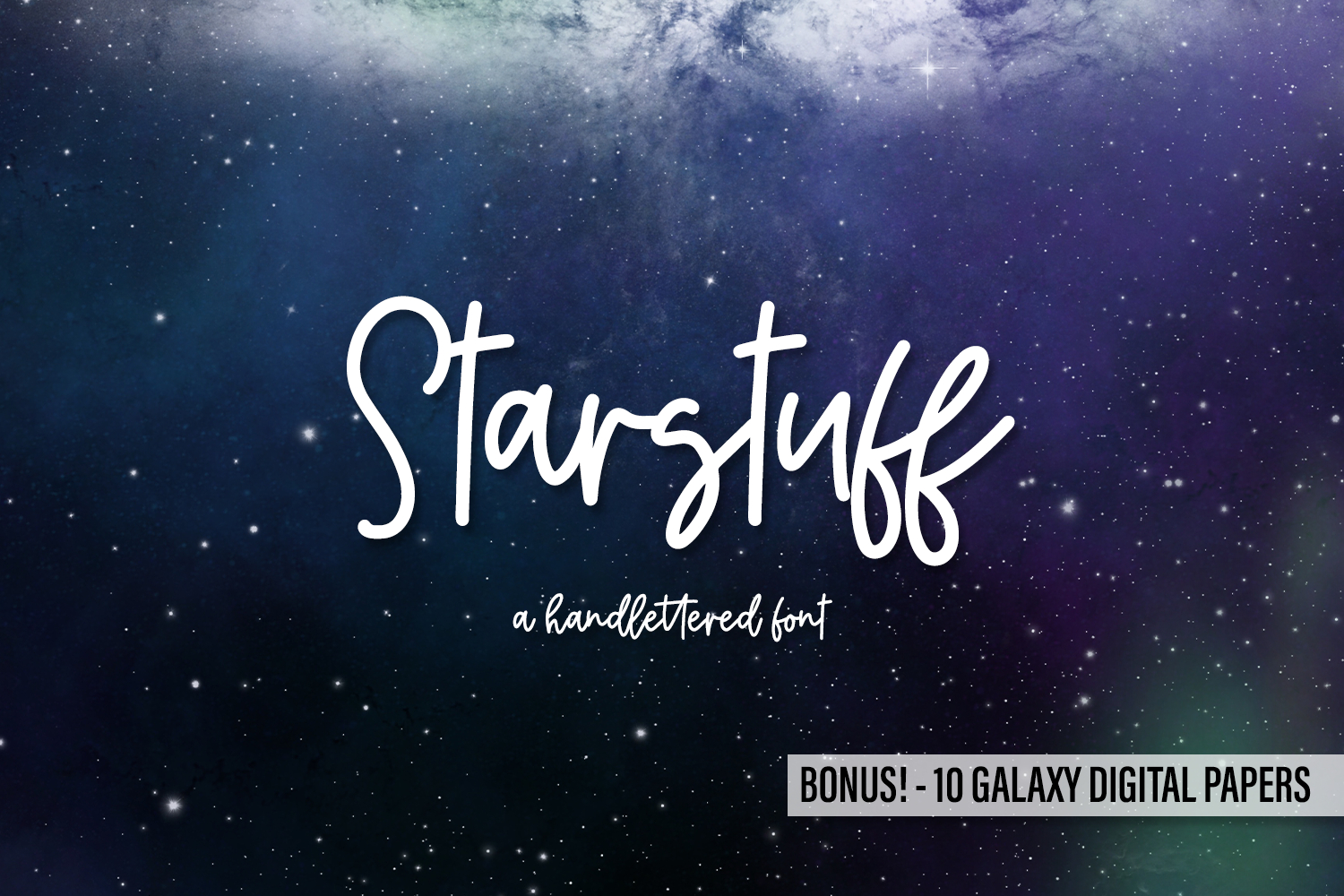
Starstuff Script
Starstuff Script is a go for launch! Starstuff Script is a signature-style monoline font. Resembling the look of a ballpoint pen or gel pen, Starstuff is an out-of-this-world addition to your font arsenal, perfect for quote graphics, modern/edgy vinyl cutting projects, or logos & branding. Pair your project with hand drawn galaxy digital papers, as shown in the images, and you’re ready for liftoff!
Starstuff Script is best for:
- social media graphics or quote graphics
- logos + branding with a modern feel
- crafting projects with your Cricut or Silhouette - Starstuff has a super smooth edge perfect for vinyl cutting or SVG design
- website design + website accents
- 11 common double letter ligatures - bb, cc, dd, ff, gg, ll, mm, nn, oo, rr, tt